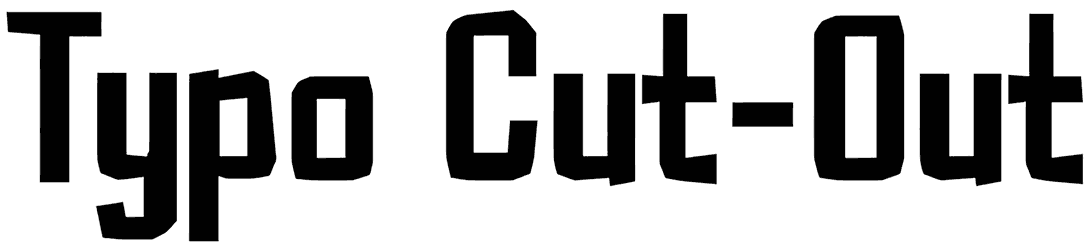
Typo Cut-Out Font
The first eye-catching thing that grabs your attention when you see the Typo Cut-Out font is the various versions and weights this font offers. Each has a unique feature, such as a dashed or simple shadow, making a 3D shape.
Thus, they can be helpful in several situations, such as posters, commercial packaging, and advertisements. Moreover, this cut-out font has a bold version that impacts the viewers at first glance, and some of the letters of the closed one are entirely solid.